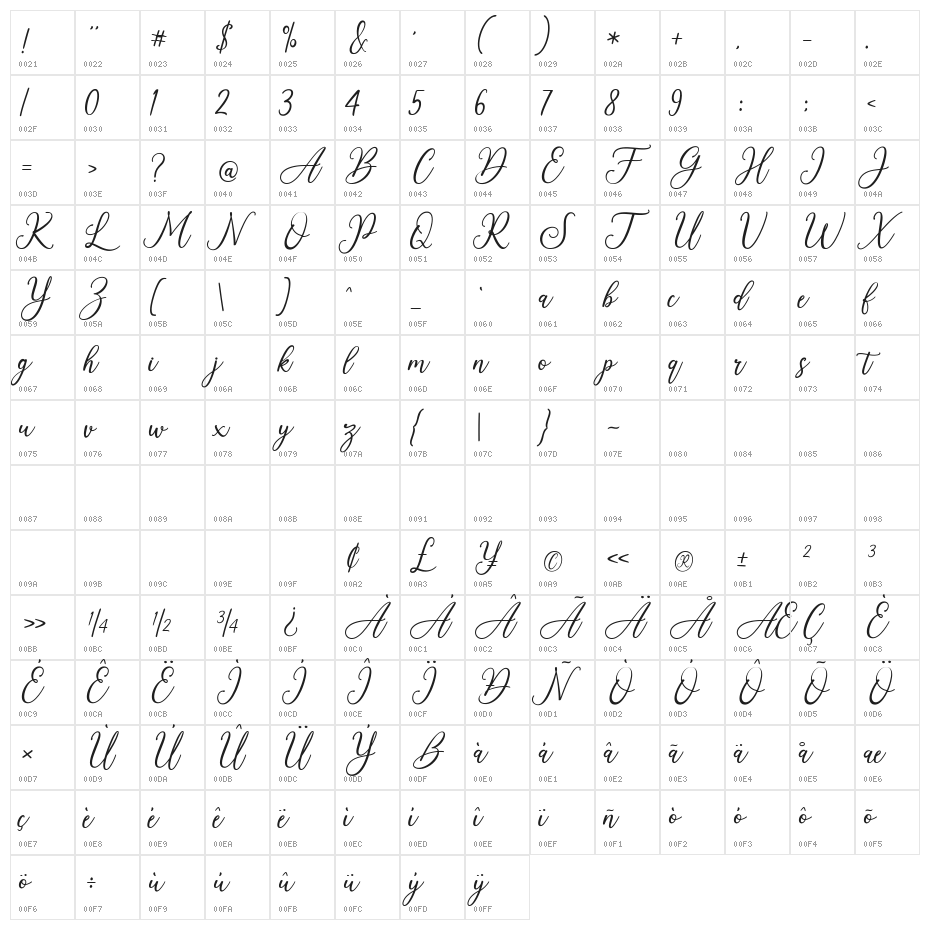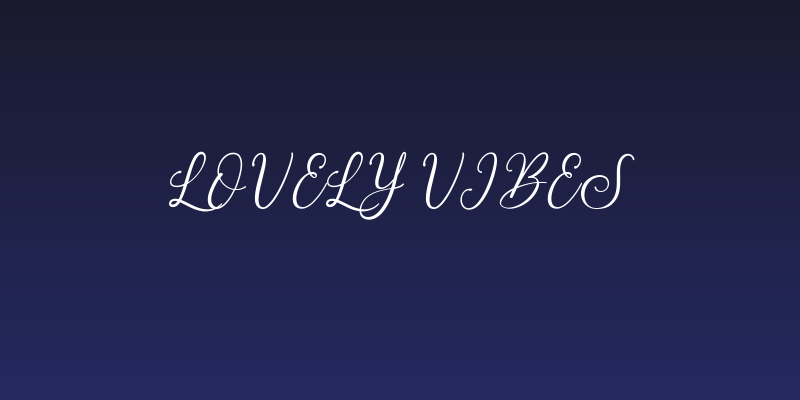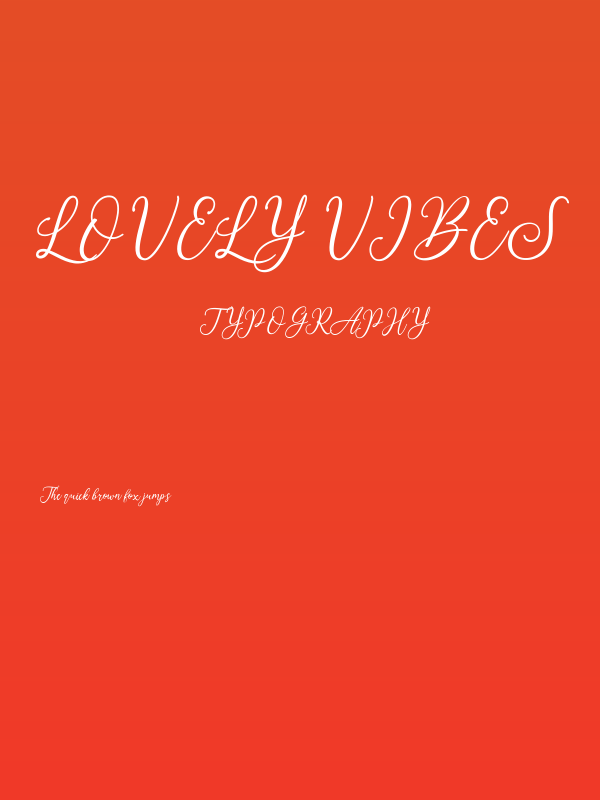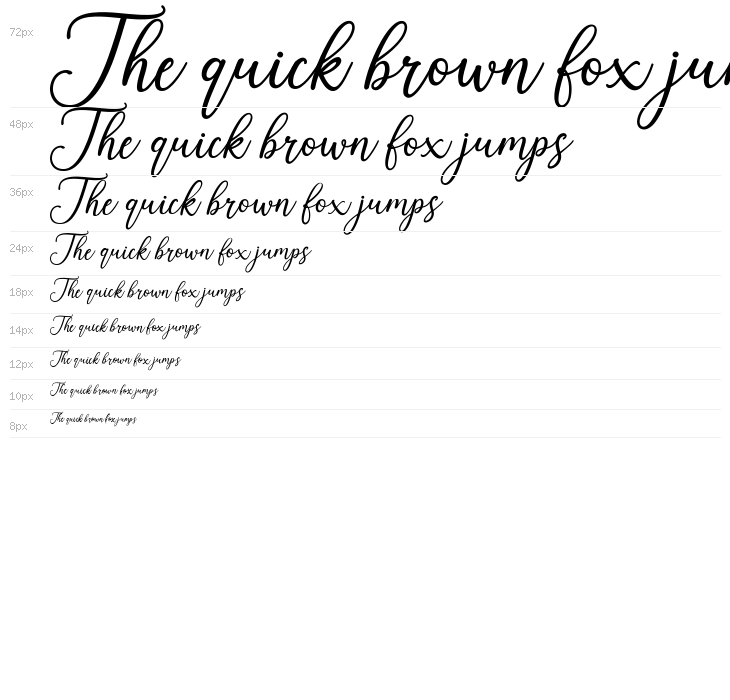
lovely vibes Font
lovely vibes Description
This elegant script font features flowing, cursive letterforms that exude a sense of grace and sophistication. The uppercase letters are characterized by their sweeping curves and loops, while the lowercase letters maintain a consistent, fluid style that complements the overall aesthetic. The numerals are designed with a similar flair, ensuring a cohesive look across all characters. Special characters are thoughtfully integrated, maintaining the font's refined appearance. This font is ideal for projects that require a touch of elegance and charm, such as wedding invitations, branding, and high-end product packaging.
| Overall Style | Elegant, Sophisticated |
| Proposed Projects | Wedding invitations, branding, high-end product packaging, greeting cards, and elegant signage. |